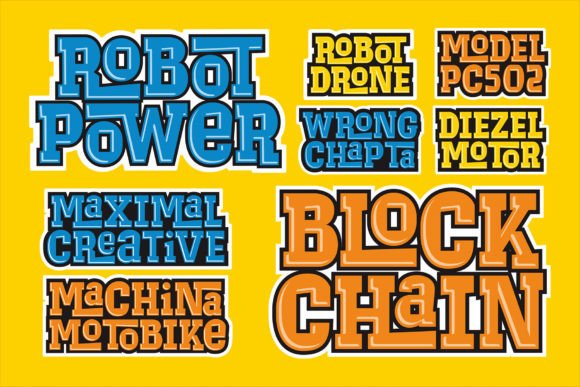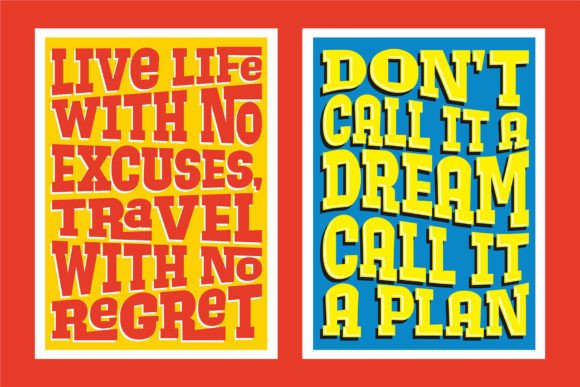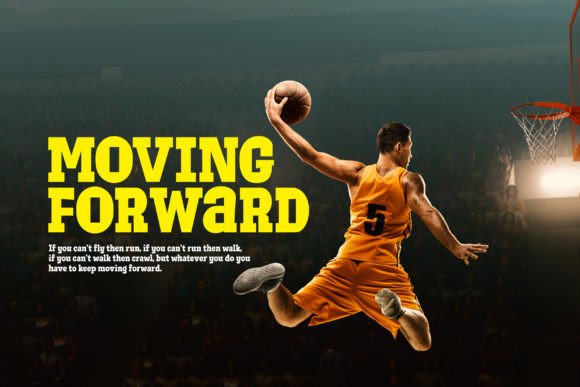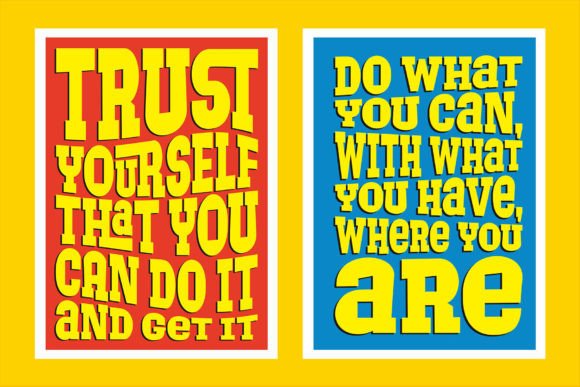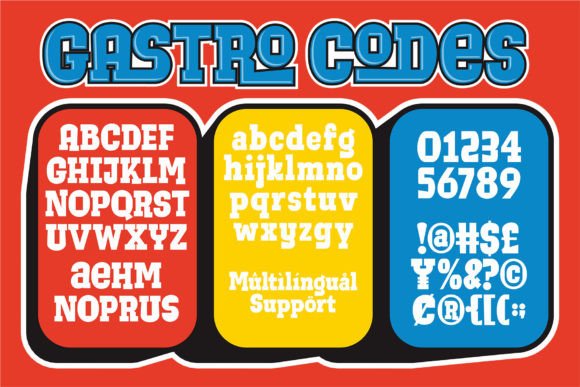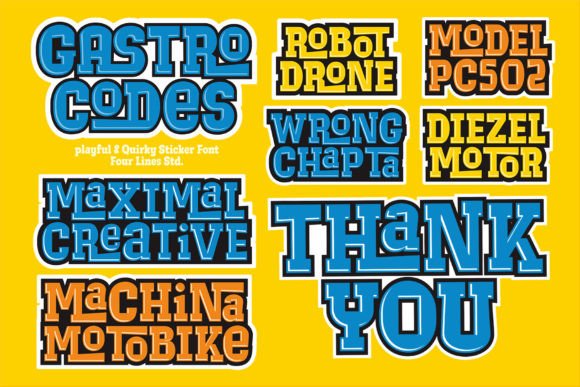
The Ultimate Design Hack: Gastro Codes Font
Have you ever been in the middle of a design project, and suddenly, you’re stuck on finding the perfect font? I recall a particularly frustrating experience while working on a poster design for a local food festival. The client wanted a bold, attention-grabbing font that would make their event stand out, but I was struggling to find something that fit the bill. That’s when I stumbled upon the Gastro Codes font, and it completely transformed my design.
First Impressions: A Bold and Whimsical Font
Gastro Codes is a bold display font designed to capture attention and add a touch of whimsy to your projects. Its robust, thick lines ensure that your message stands out, whether you’re designing posters, banners, logos, stickers, or any other project that needs to grab attention.
- ✨ Attention-grabbing: Gastro Codes is perfect for projects that need to stand out from the crowd.
- ✅ Versatile: This font can be used for a wide range of projects, from posters and banners to logos and stickers.
- 💥 Impactful: The bold lines and thick strokes make it perfect for creating eye-catching designs.
⚠️ While Gastro Codes is an amazing font, it’s not suitable for body text or long paragraphs. Its bold nature makes it better suited for headlines and titles. 🤔 Additionally, some users may find the font a bit too bold for certain projects, but this can be easily adjusted by experimenting with different font sizes and styles.
One of the exciting features of Gastro Codes is its support for OpenType features, glyphs, and stylistic alternates. These features allow you to add more personality and variety to your designs. For example, you can use:
- Ligatures: Combine letters to create unique and interesting effects.
- Stylistic alternates: Switch between different font styles to add more visual interest.
- Glyphs: Access additional characters and symbols to enhance your design.
The Designer Inspiration Behind Gastro Codes
Gastro Codes was designed with the goal of creating a bold, attention-grabbing font that would add a touch of whimsy to any design project. The designer wanted to create a font that would be perfect for foodies, chefs, and restaurateurs who need to make their mark in a crowded culinary scene.
Q: What is Gastro Codes font?
A: Gastro Codes is a bold display font designed to capture attention and add a touch of whimsy to your projects.
Q: Is Gastro Codes easy to read?
A: While Gastro Codes is a bold font, it’s not suitable for body text or long paragraphs. Its bold nature makes it better suited for headlines and titles.